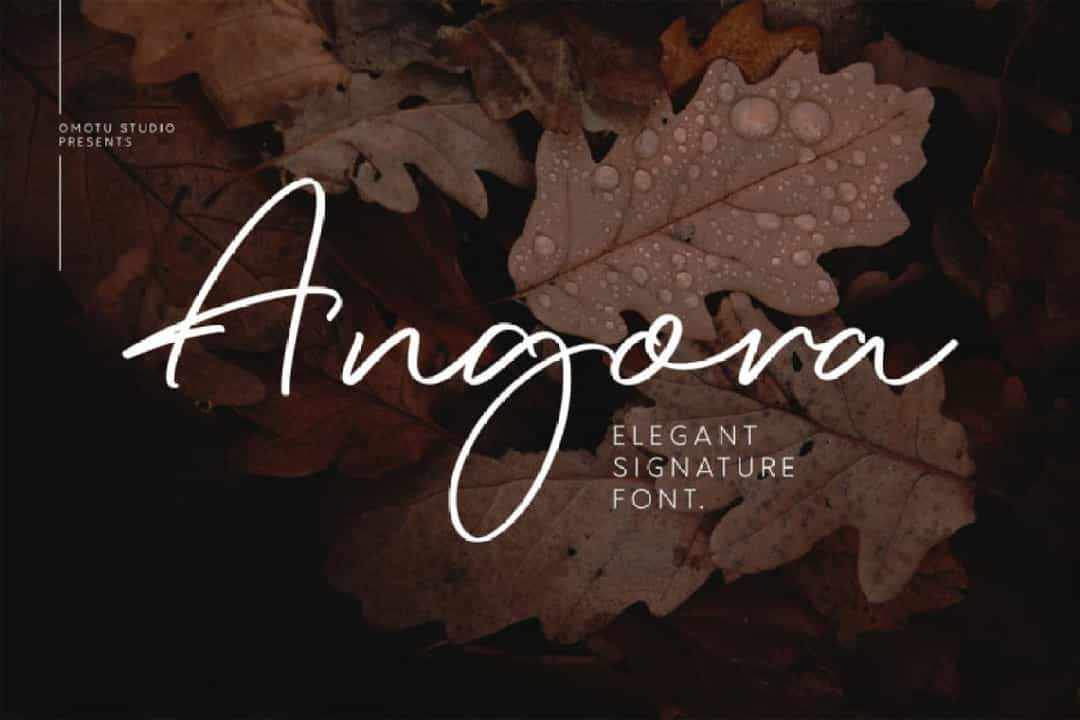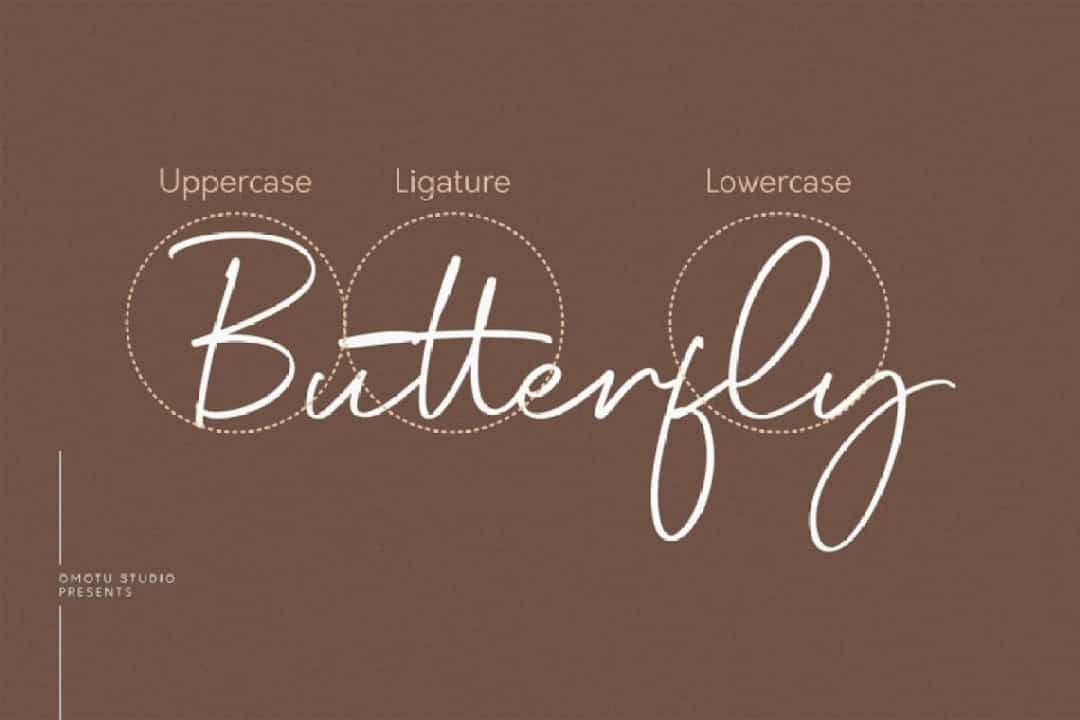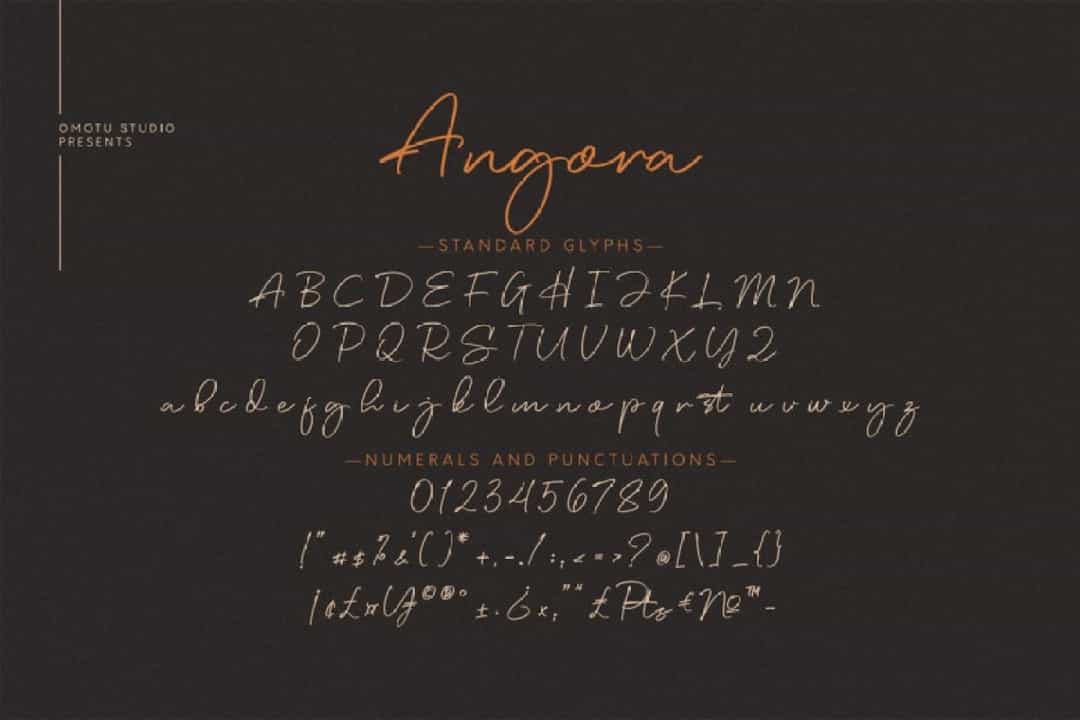
Discover Angora Font, part of the Handwritten Script Personal collection—a versatile and unique font perfect for adding a personal touch to your projects. Download it for free and enjoy crafting designs with style, from invitations to social media posts. This font is available exclusively for personal use, giving you the freedom to create without limits. Unlock your creativity with Angora Font today!
The Angora Font is an exclusive handwritten font created to serve all your design requirements starting from logotypes and branding, clothing (T-shirts, Hoodies, etc.) and packaging for products to flyers, posters with quotes, and posters for advertisements, etc.